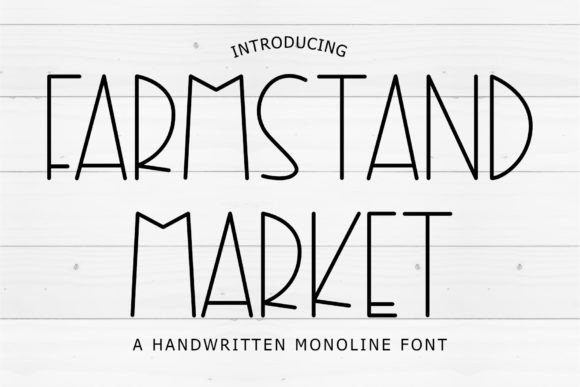
Adding a Touch of Rustic Charm to Your Designs
Have you ever been brainstorming a new design project and suddenly, a burst of creativity strikes? You envision a beautiful farmhouse-inspired layout, complete with vintage elements and a touch of whimsy. The perfect finishing touch? A font that exudes warmth and character. That’s where the Farmstand Market Font comes in – a tall and skinny display font that’s sure to add a joyful touch to your designs.
Whether you’re a seasoned designer or a creative enthusiast, the Farmstand Market Font is a valuable addition to your toolkit. Its unique style and versatility make it perfect for a wide range of projects, from wedding invitations to social media graphics. By incorporating this beautiful display font into your designs, you’ll be able to add a level of personality and charm that’s sure to engage your audience.
Farmstand Market Font Key Features
- Unique Characteristics: Features a rustic, handwritten feel with subtle texture and imperfections, perfect for creating a warm and inviting atmosphere
Farmstand Market Font Review
Overall, I’m impressed with the unique charm of Farmstand Market Font. It’s perfect for branding and marketing materials that need a rustic, down-to-earth feel. ✨ The font’s handwritten style adds a touch of warmth and personality, making it ideal for small businesses, farmers’ markets, or outdoor events. ✨ The font’s versatility also shines through in its various weight options, allowing for a range of creative possibilities.
However, there are some limitations to consider. ⚠️ For one, the font’s readability can be a concern, especially at smaller sizes. ⚠️ This may be a problem for body text or long blocks of text, where the font’s unique character may become overwhelming. ⚠️ Additionally, the font’s design may not be suitable for formal or professional applications, where a more polished look is required.
- Unique handwritten style for a rustic, down-to-earth feel
- Versatile weight options for creative possibilities
- Perfect for branding and marketing materials
- May not be suitable for formal or professional applications
- Readability can be a concern at smaller sizes
In conclusion, Farmstand Market Font is a great choice for designers looking for a unique and charming font for specific projects. However, it’s essential to consider the font’s limitations and potential drawbacks before committing to it.
Tips for Getting the Most Out of Farmstand Market Font
Use Farmstand Market Font for rustic, country-inspired designs.
Pair it with earthy colors like green, brown, and beige for a cohesive look.
Experiment with different font sizes and styles to add visual interest.
Farmstand Market Font is perfect for:
Country-themed weddings and events.
Rustic food labels and packaging.
Outdoor and nature-inspired designs.